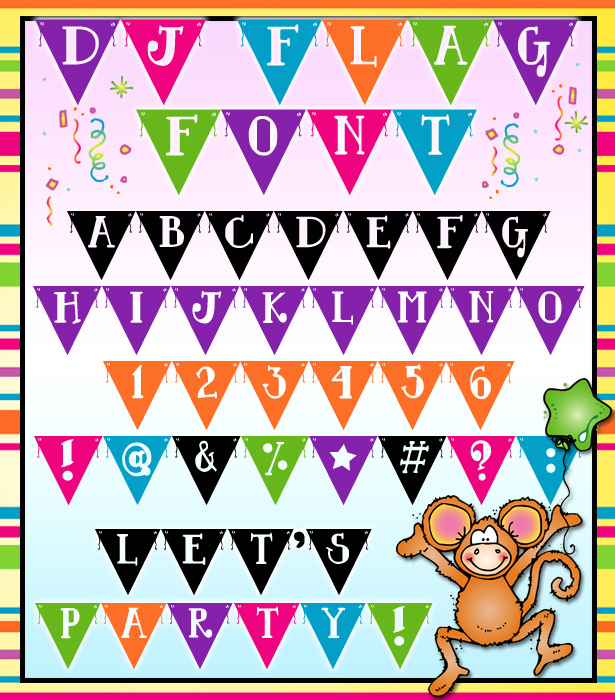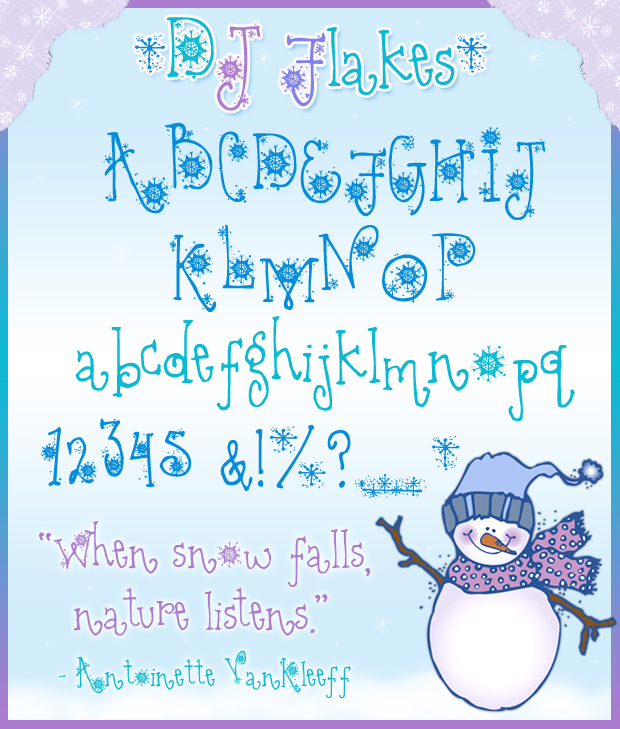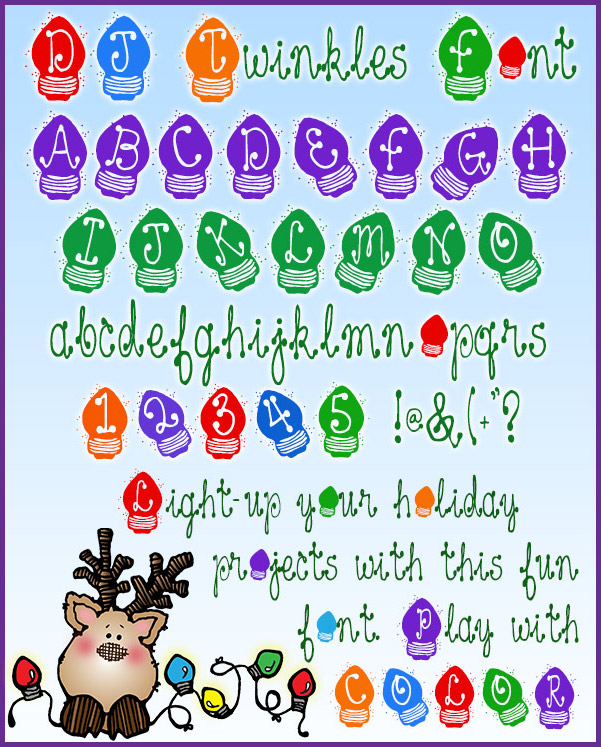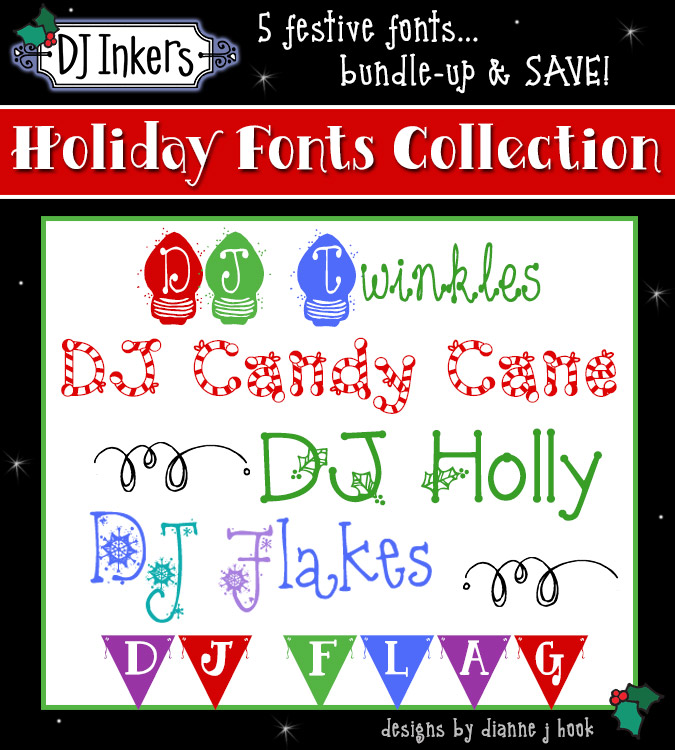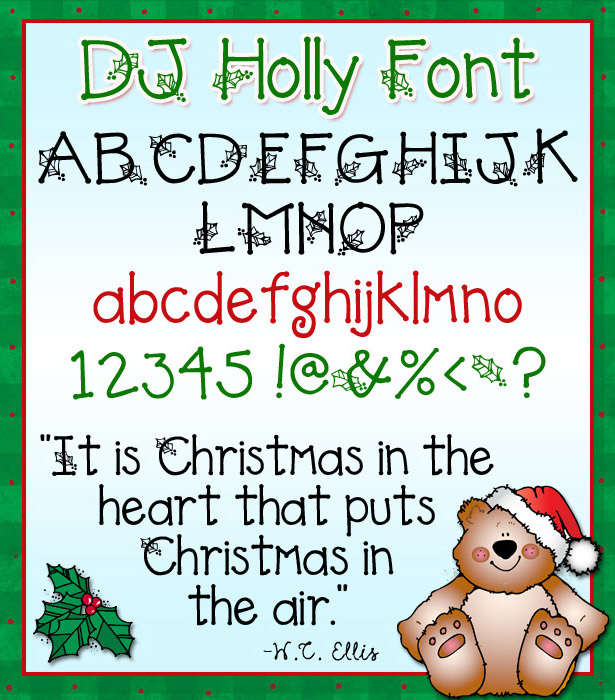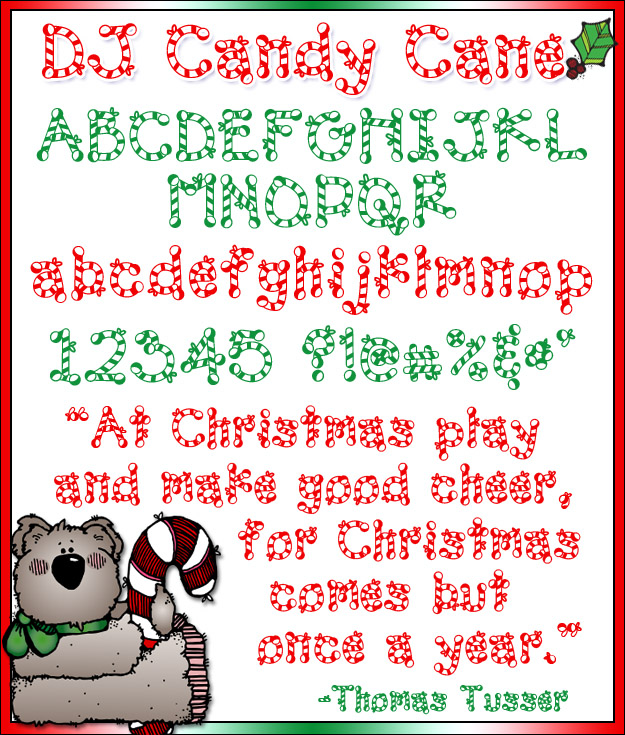
Get jolly & festive with your projects with DJ Inker's Holiday Fonts Collection
DJ Holiday Fonts Collection - 5 Festive Fonts Bundle
Ready to get jolly & festive with your projects this holiday season? Bundle, Save and jingle all the way with DJ's Holiday Font Collection! Give yourself the gift of smiles and unwrap cute lettering for Christmas, winter and New Year celebrations.
Download includes:  DJ Candy Cane, DJ Holly, DJ Twinkles, DJ Flakes and DJ Flag.  Also sold separately, but this set saves you a bundle! See additional images for lettering samples.